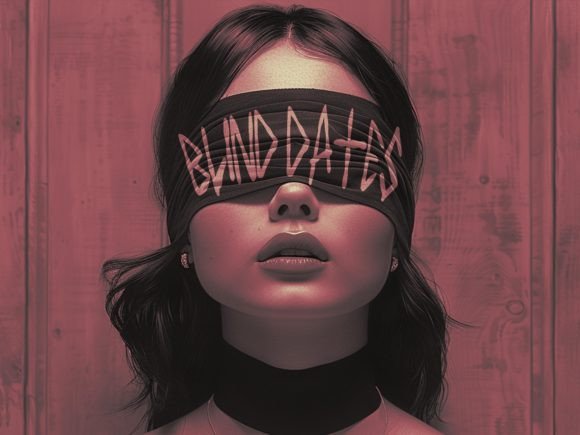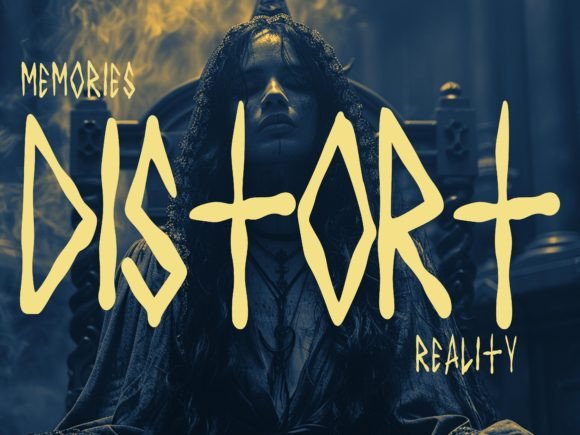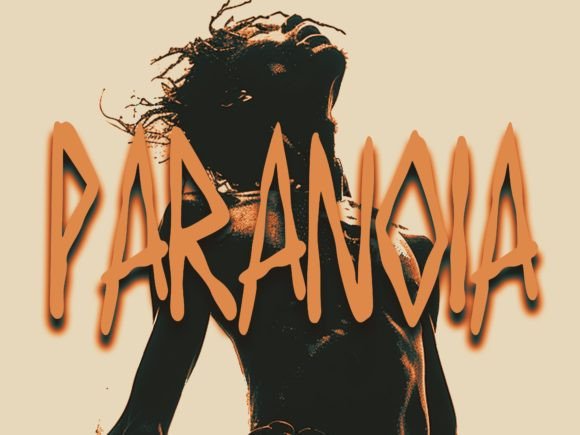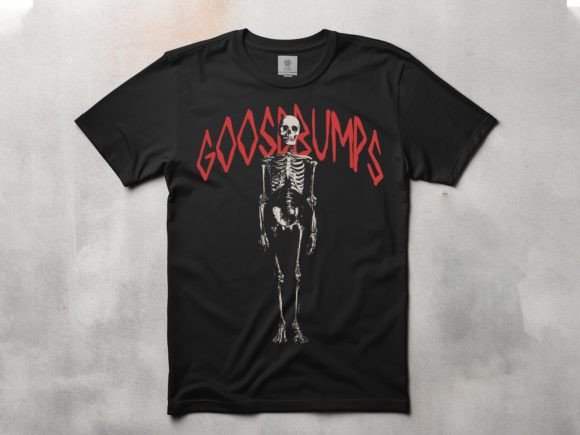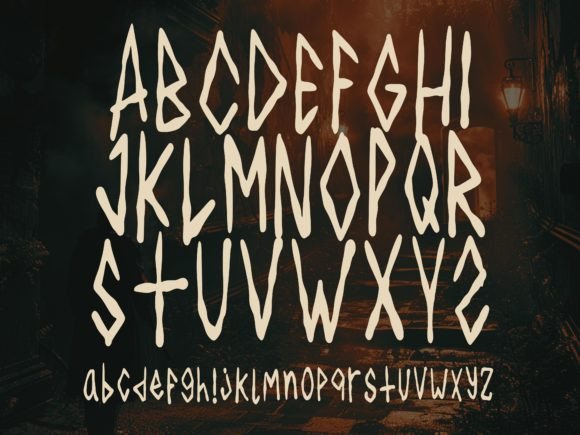
Introduction to Goose Bumps Font
Do you remember the excitement of staying up late to finish a scary book, the thrill of the unknown, and the rush of adrenaline as you turned the pages? The Goose Bumps Font brings back those unforgettable moments, transporting you to a world of horror and suspense. This font is a design resource that combines classic retro touches with a strong vintage vibe, making it a perfect addition to any creative project.
As a designer, you’re always on the lookout for high-quality fonts that can elevate your work. The Goose Bumps Font is a valuable asset for any creative project, from horror film posters to distinctive merchandise designs. With its chilling and thrilling horror atmosphere, this font adds a touch of nostalgia and unforgettable tension to every project it’s involved in.
Key Features of Goose Bumps Font
- Unique, spooky design perfect for creative projects and Halloween-themed designs
- Includes a range of characters, including uppercase and lowercase letters, numbers, and special symbols
Honest Review: Goose Bumps Font
I recently stumbled upon the Goose Bumps Font, and I have to say it’s been a game-changer for my design projects. The high quality and unique texture make it a standout design resource.
- ✨ High-quality texture that adds a professional touch to creative projects
- ⚠️ Limited character set, which may not be suitable for longer texts
- ⚠️ May not be ideal for designs requiring precise font control
Overall, I’m impressed with the Goose Bumps Font. It’s a great addition to any design library, and I can see it being a hit for creative projects that require a unique touch. While it may not be perfect, its strengths far outweigh its limitations, making it a valuable resource for designers.
How to Use Goose Bumps Font
The Goose Bumps Font is a unique and eye-catching design resource ideal for creative projects. With its high-quality design and transparent background, it’s perfect for adding a touch of elegance to any visual content.
Tips for Getting the Most Out of Goose Bumps Font
For the best results, experiment with different font sizes, colors, and combinations to create unique and visually appealing designs. Additionally, use the transparent background to add depth and texture to your designs.
The Goose Bumps Font is perfect for various design projects, including:
- Event branding and marketing materials
- Social media graphics and advertisements